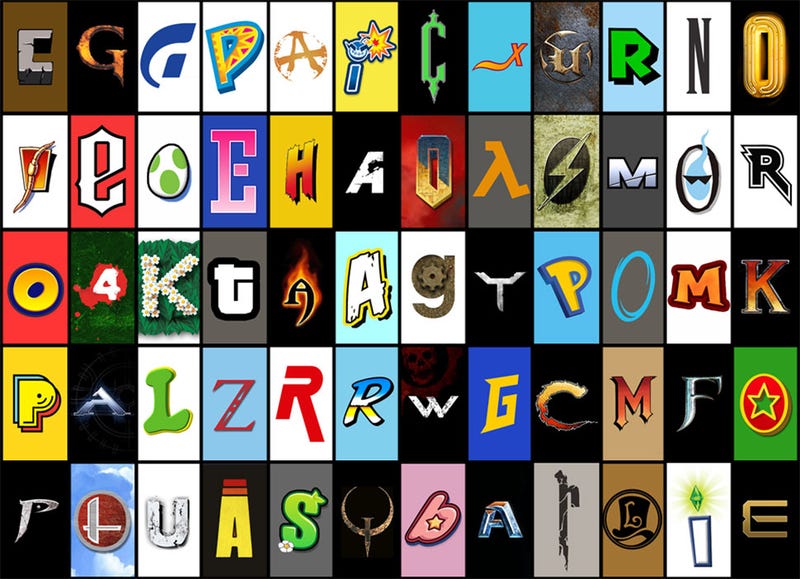
Where Do These 48 Video Game Fonts Come From?
Typography plays an incredibly important role in establishing video game brands, to the point where a single letter torn from a title can evoke an entire franchise. Paul Brown, creator of the free Font Quiz app (available on iOS and Windows 8) assembled 48 of gaming's finest in font form, suggesting such an arrangement be an excellent use of our spiffy image annotation system. What a clever man.